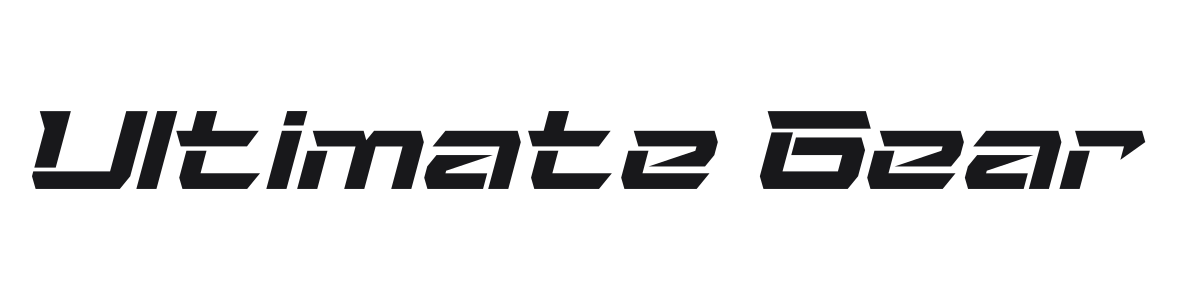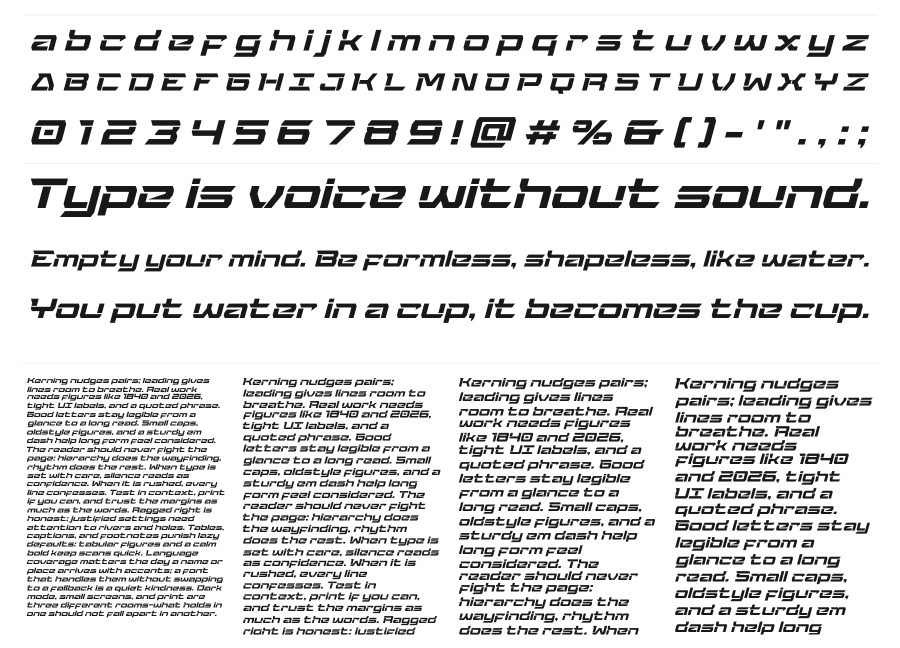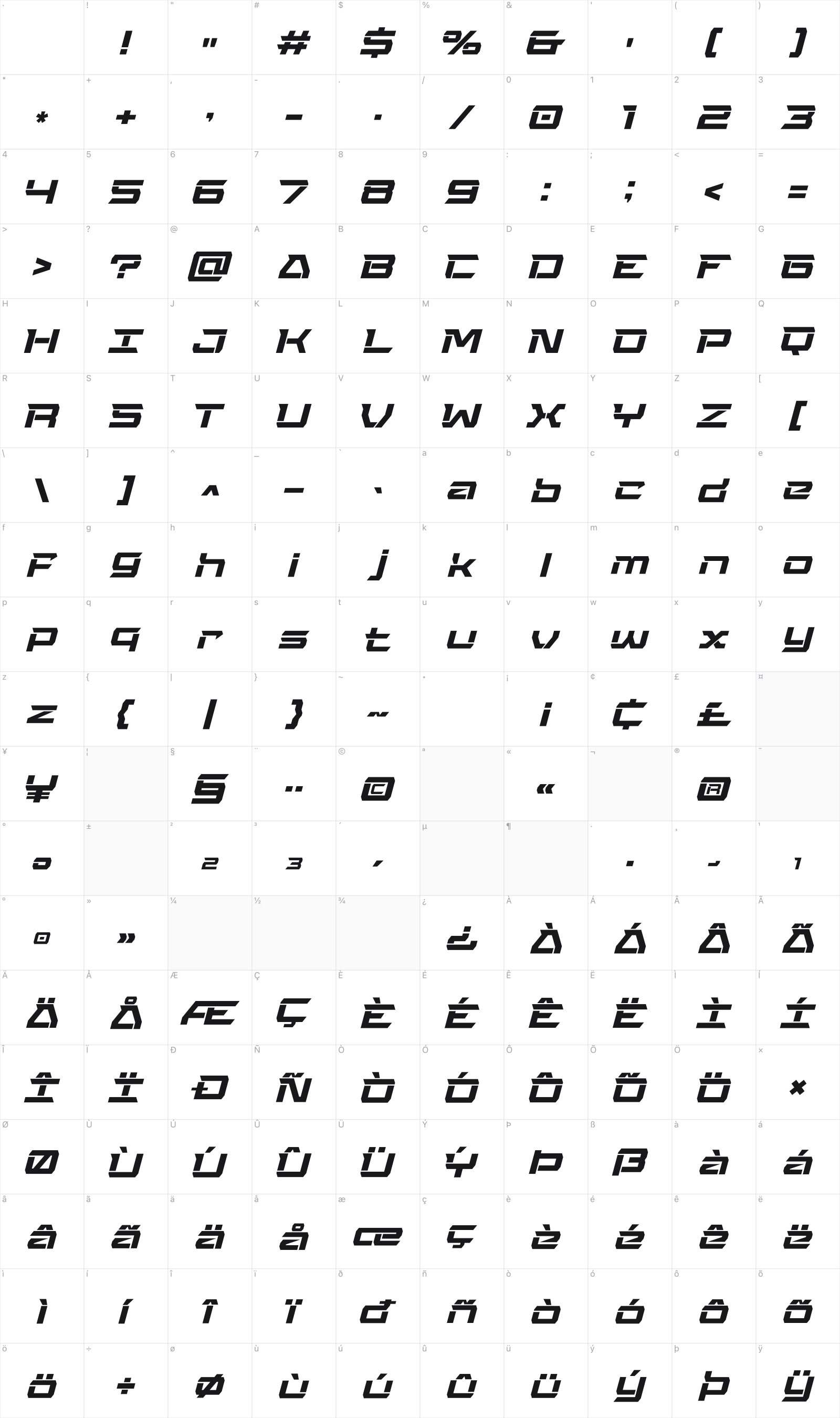
Ultimate Gear
Ultimate Gear is a bold, slanted techno sans with sharp diagonal cuts and angular terminals that evoke machine parts and high-speed motion. The heavy italic stance and geometric construction give every word a sense of kinetic energy. It suits gaming titles, motorsport branding, and any headline that needs to feel fast and mechanical.